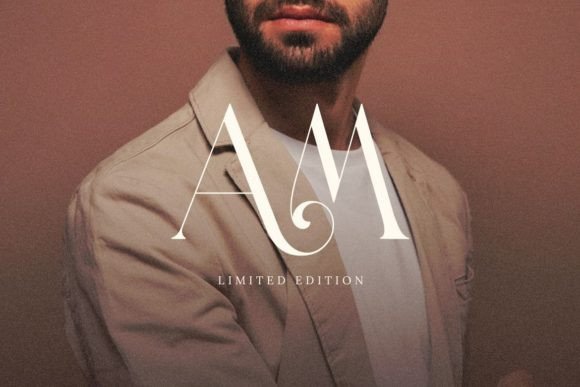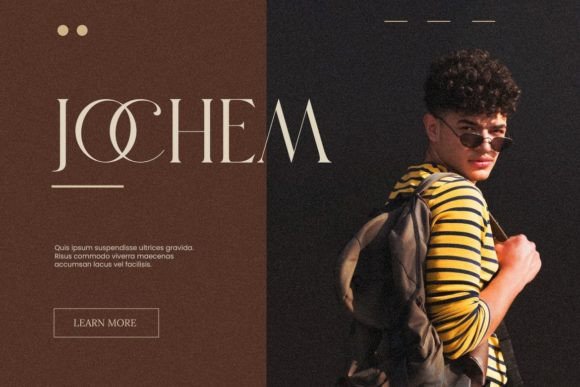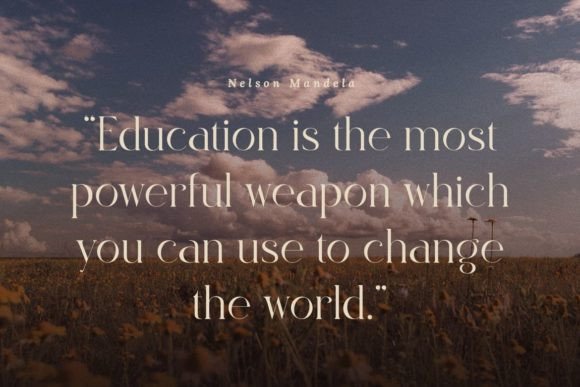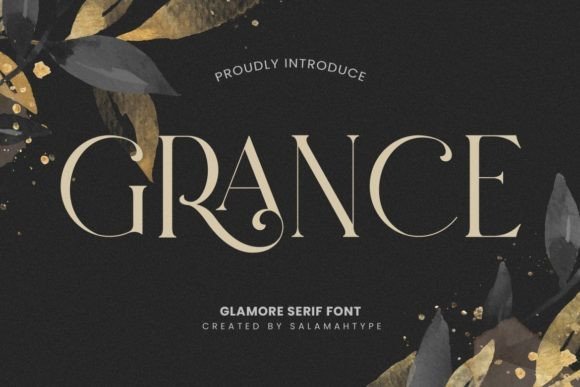
Introduction to Grance Font
Grance is an elegant serif typeface with a luxurious and clean style, perfect for websites, modern logos, brand identities, social media quotes, weddings, stationery, and anything you want.
Key Features of Grance Font